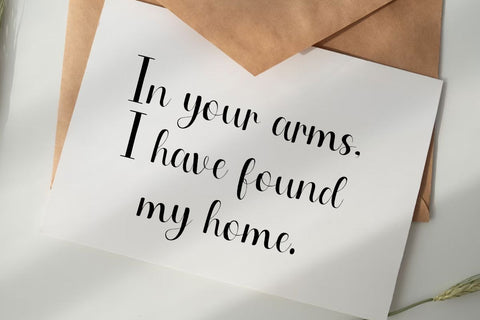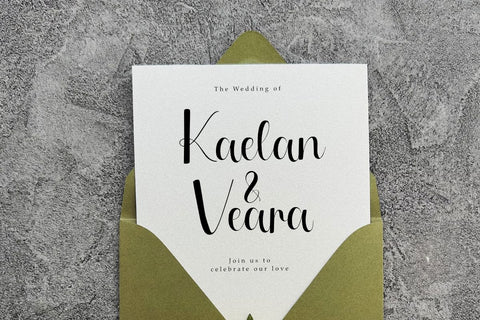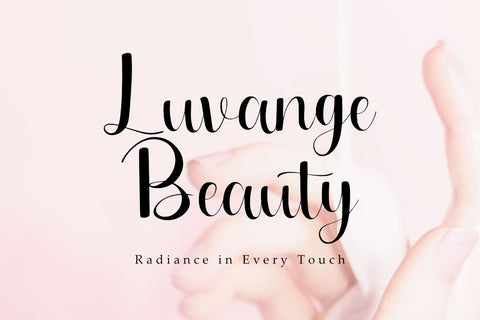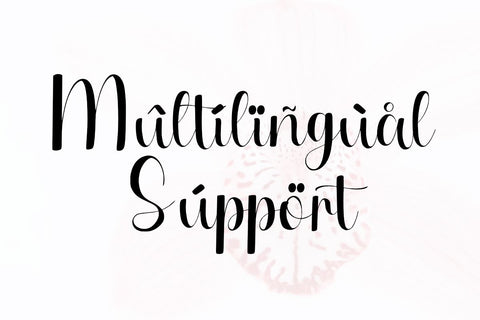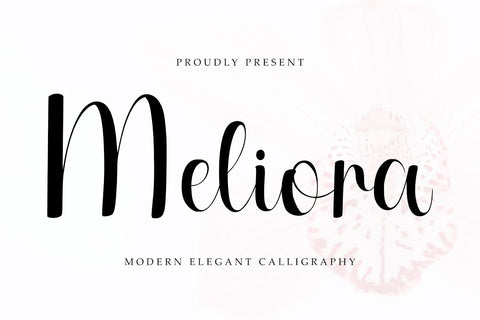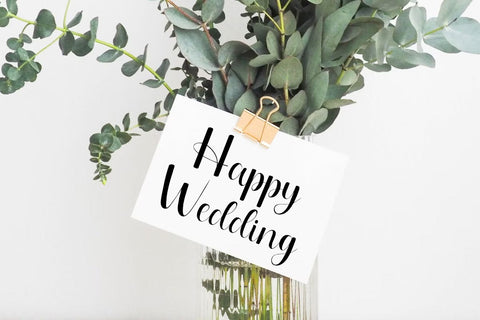
Meliora - Elegant Script Font
Meliora is an elegant and modern script font with smooth and luxurious strokes. Perfect for wedding invitations, branding, logos, quotes, greeting cards and signature styles. With a feminine and stylish look, this font will give an exclusive touch to your designs!